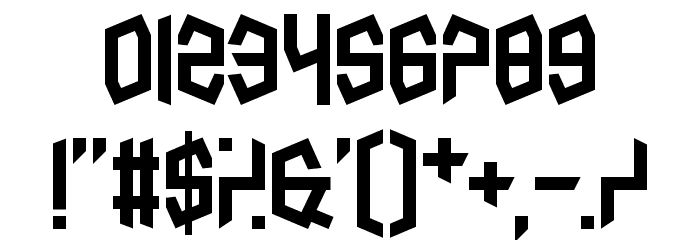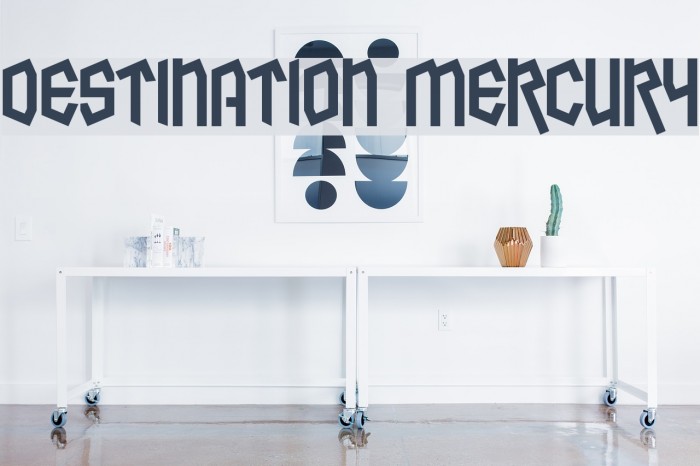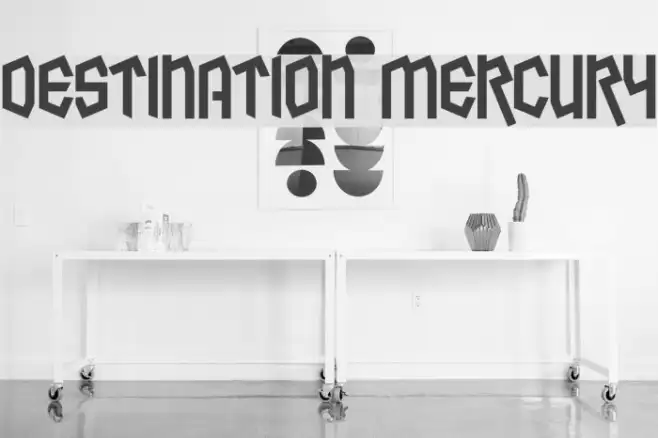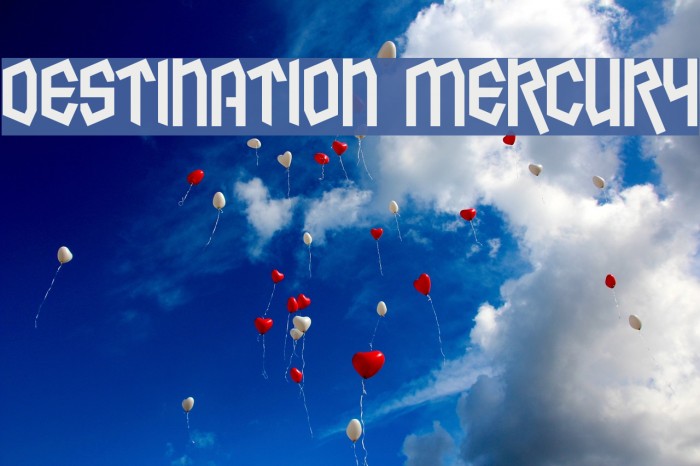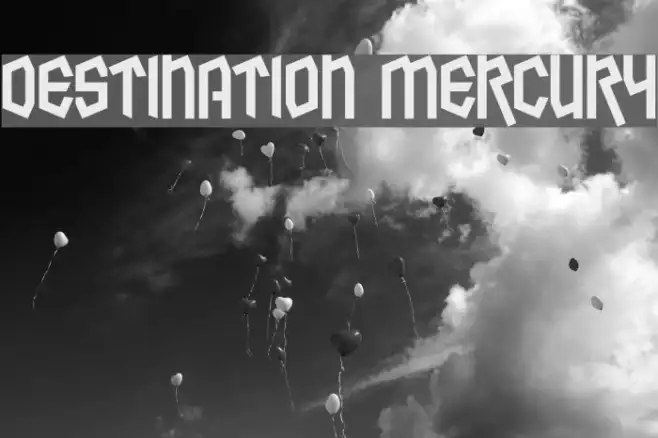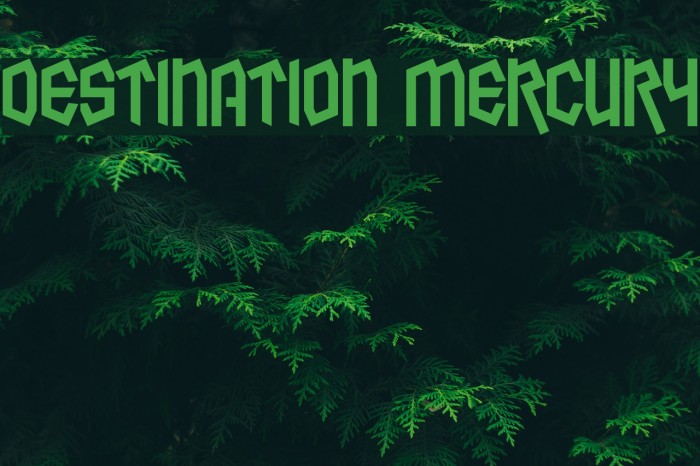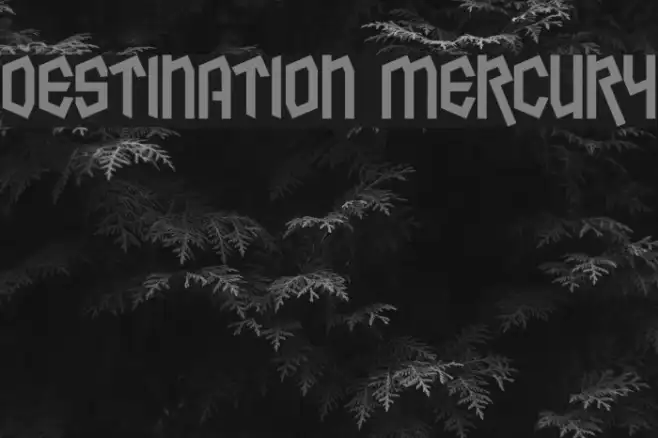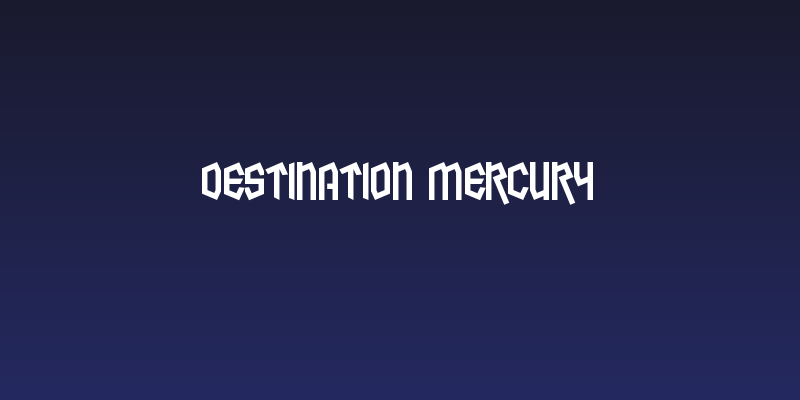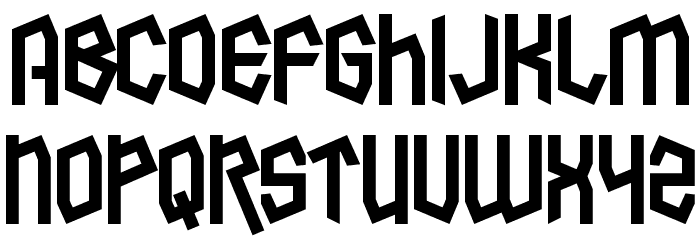
Destination Mercury Font
Destination Mercury Description
This font features a bold, angular design with a futuristic and geometric aesthetic. The characters are constructed with sharp, straight lines and distinct angles, giving it a unique and edgy appearance. The uppercase and lowercase letters maintain a consistent style, with a uniform height and width that enhances readability. The numbers and special characters follow the same design principles, ensuring a cohesive look across all elements. The font's boldness and distinct style make it stand out, suitable for projects that require a modern and dynamic feel.
| Proposed Projects | Ideal for sci-fi themed projects, video game graphics, posters, and branding that requires a modern, edgy look. |